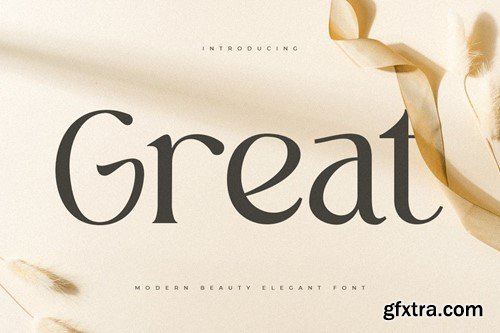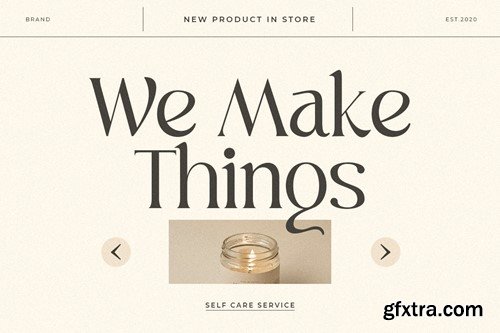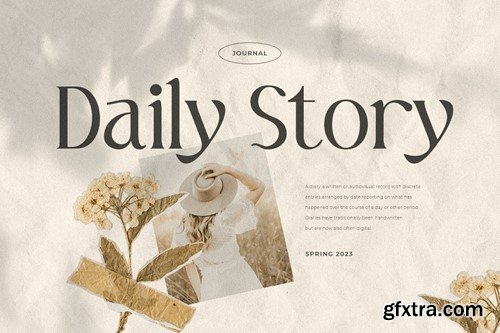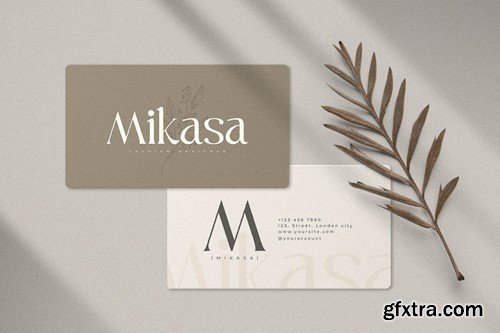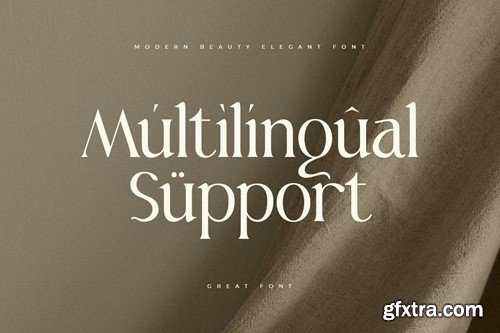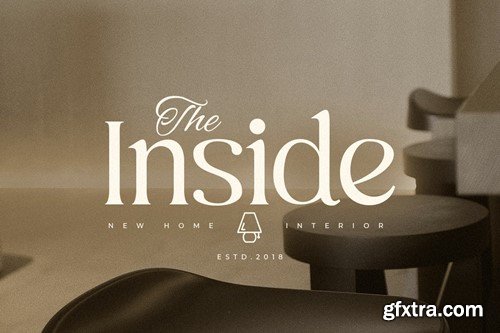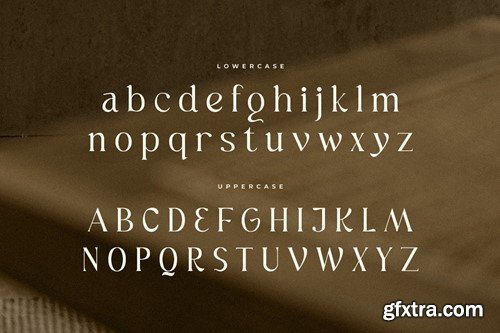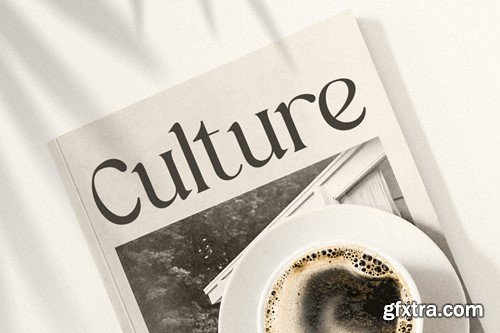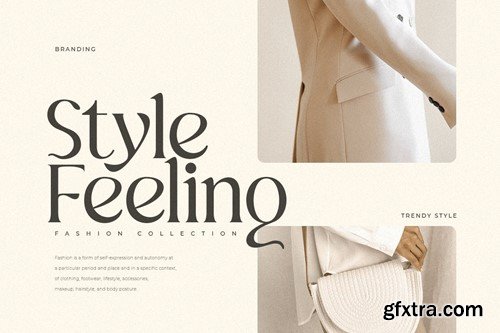
Great - Modern Beauty Elegant Font
A Classy Elegant Display Font that we created special for elegant and Fashion branding needs that we created special for elegant branding needs, with unique shape will be ready to add value of your brand. It so nice to leverage designer or product owner that need solutions to make their design look more classy and modern. And specially for this font, We prepared any unique characters to help you create unlimited variations for your creative needs.
Great Modern Beauty Elegant Font ready with:
• Any options unique characters to get creative variations
• Preview as a inspirations that you can do with Great font
• Ready with Lowercase and Uppercase characters